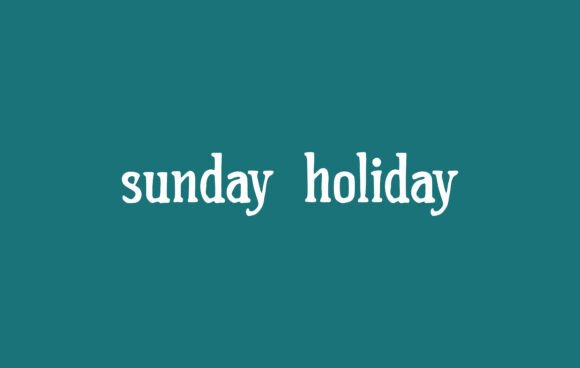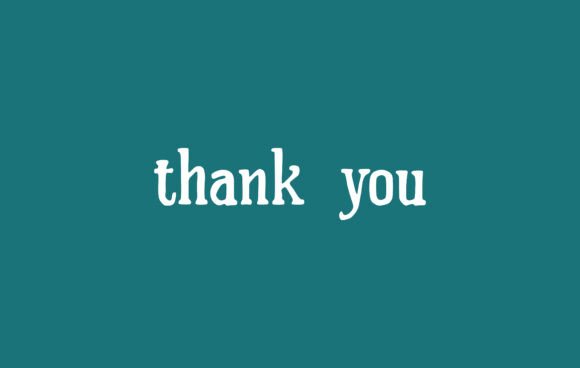
Introducing Arcane Flow Font: Elevate Your Designs with a Romantic Touch
Are you tired of using the same old fonts in your designs? Look no further than Arcane Flow Font, a beautiful handwritten font that adds a romantic touch to any project. With its unique blend of elegance and playfulness, this font is sure to become a favorite among designers and crafters alike.
What Makes Arcane Flow Font Special?
Arcane Flow Font is an authentic handwritten font that has been expertly designed to capture the essence of a romantic, whimsical feel. Its flowing lines and delicate curves make it perfect for a wide range of design applications, from magazine headlines to social media graphics, branding, wedding invitations, and more.
One of the standout features of Arcane Flow Font is its legibility. Unlike some handwritten fonts that can be difficult to read, Arcane Flow Font is clear and easy to understand, making it perfect for use as both title and body text. This versatility makes it an excellent choice for designers who want to create cohesive and visually appealing designs.
Uses for Arcane Flow Font
So, what can you use Arcane Flow Font for? The possibilities are endless! Here are a few ideas to get you started:
- Magazine Headlines: Add a touch of elegance to your magazine headlines with Arcane Flow Font. Its unique and eye-catching design is sure to grab readers’ attention.
- Social Media Graphics: Take your social media graphics to the next level with Arcane Flow Font. Use it to create eye-catching posts, stories, and ads that will engage your audience.
- Branding: Establish your brand’s identity with Arcane Flow Font. Its romantic and whimsical feel makes it perfect for brands that want to convey a sense of sophistication and elegance.
- Wedding Invitations: Make your wedding invitations truly special with Arcane Flow Font. Its beautiful and delicate design is sure to impress your guests.
- Cards and Stationery: Add a personal touch to your cards and stationery with Arcane Flow Font. Its unique design is sure to make your correspondence stand out.
Why Designers and Crafters Love Arcane Flow Font
So, why do designers and crafters love Arcane Flow Font? Here are just a few reasons:
- Unique Design: Arcane Flow Font has a unique and eye-catching design that sets it apart from other fonts.
- Legibility: Its clear and easy-to-read design makes it perfect for use as both title and body text.
- Versatility: Arcane Flow Font can be used for a wide range of design applications, from magazine headlines to social media graphics.
- Elegance: Its romantic and whimsical feel makes it perfect for designs that require a touch of sophistication and elegance.
In conclusion, Arcane Flow Font is a beautiful and versatile handwritten font that is perfect for designers and crafters who want to add a romantic touch to their designs. With its unique design, legibility, and versatility, it’s sure to become a favorite among designers and crafters alike. Whether you’re creating magazine headlines, social media graphics, branding, wedding invitations, or cards, Arcane Flow Font is the perfect choice. So why wait? Download Arcane Flow Font today and take your designs to the next level!